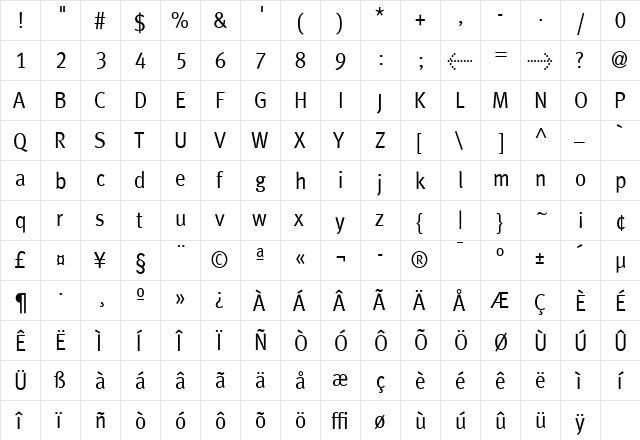
MetroMeta Condensed
| Foundry | \ Erik Spiekermann \ MetaDesign, Typedepartment, Ole Sch\ fer |
Design Context for MetroMeta Typeface
MetroMeta offers clean, dependable letterforms without strong stylistic allegiance, making it a practical choice for designers who need flexibility. The condensed width makes it efficient for tight spaces without sacrificing legibility.